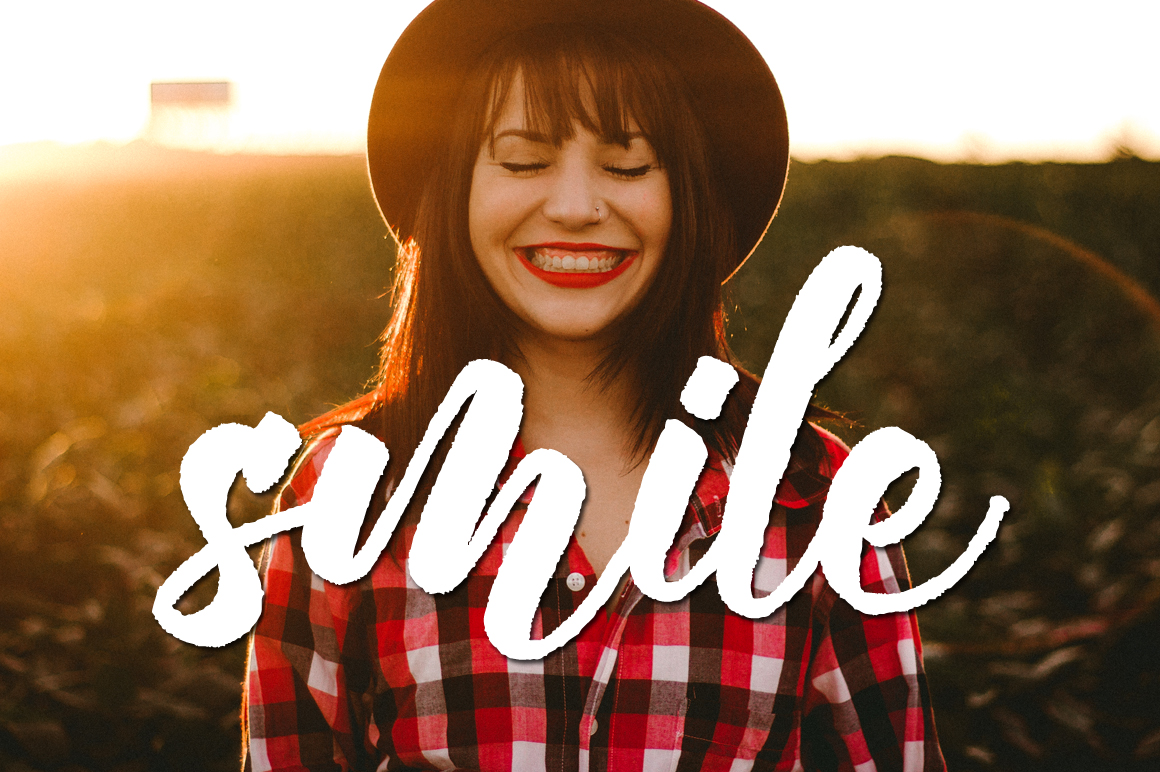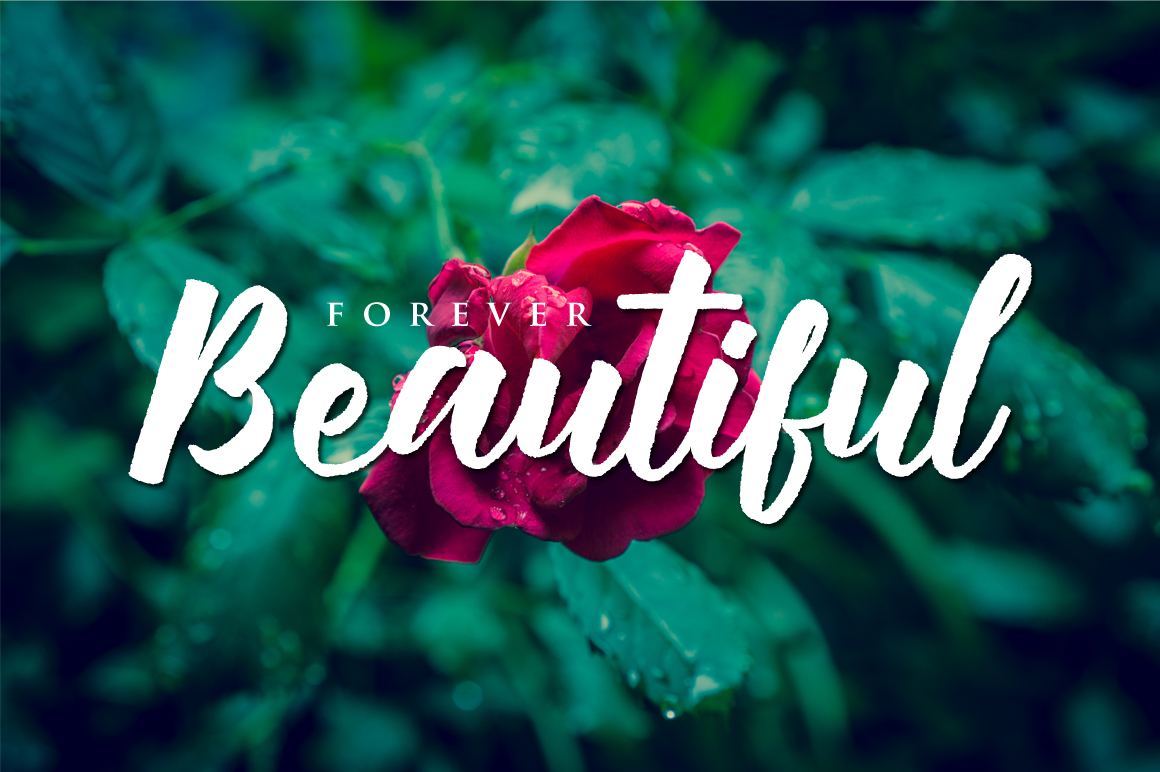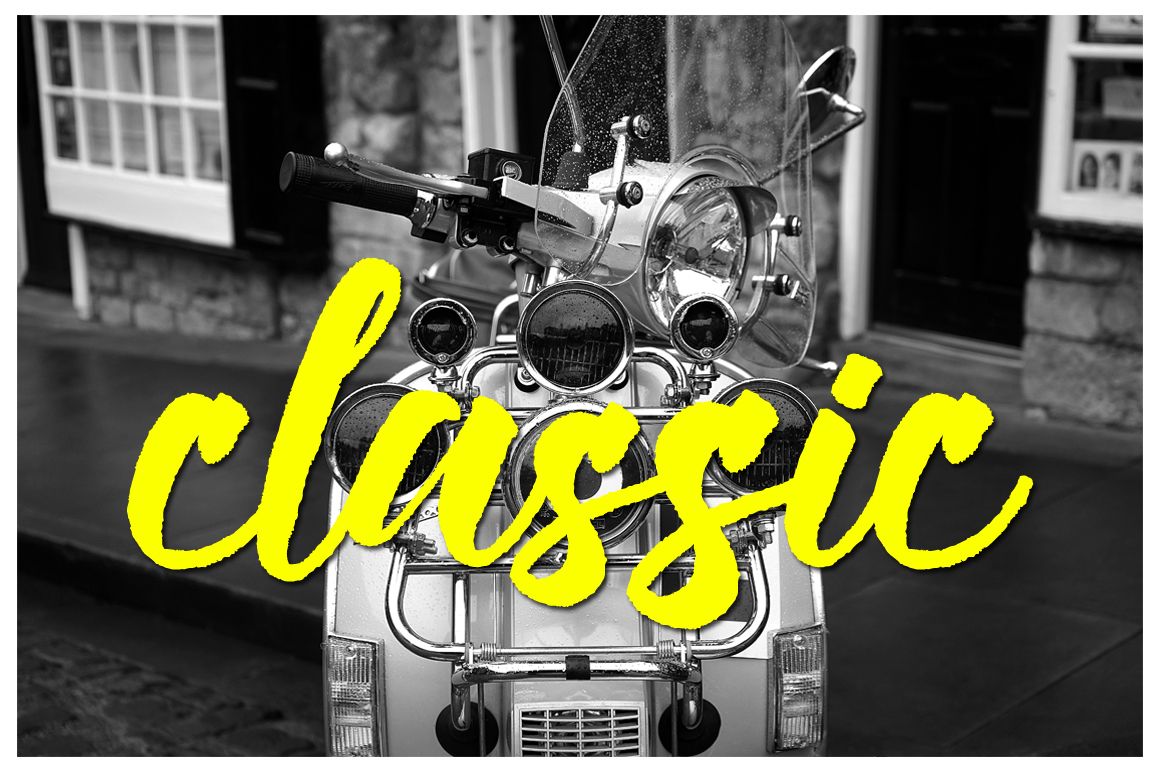
Introduction to Manttes Font
As designers, we’ve all been there – staring at a blank canvas, waiting for that perfect font to bring our creative project to life. For some, it’s a moment of pure inspiration, while for others, it’s a tedious search through endless font libraries. But what if we told you that there’s a font that can make that moment of magic happen? Meet the Manttes Font, a stunning, handmade creation that’s about to revolutionize your design workflow.
This high-quality font, crafted in a modern calligraphic style, is a valuable design resource that’s sure to elevate your creative projects. With its transparent background and versatility, it’s perfect for designers looking to add a touch of sophistication to their work. And the best part? It’s available for a free download, making it an accessible and exciting addition to your design arsenal.
Key Features of Manttes Font
- High-quality design resource ideal for creative projects, offering a unique and elegant touch.
- Transparent background, allowing for effortless layering and customization to suit any design requirement.
- Available in multiple sizes and resolutions, making it perfect for a range of creative applications.
- Designed with precision and care, Manttes Font boasts a sophisticated and refined aesthetic, elevating any design to the next level.
- Perfect for use in various creative projects, from digital art to print media, due to its versatility and high-quality design.
Honest Review: Manttes Font
As a designer, I’m always on the lookout for high-quality design resources to elevate my creative projects. Recently, I came across the Manttes Font, and I was eager to put it to the test.
Here are my thoughts on what works well with this font:
- ✨ Unique design: The Manttes Font has a distinctive style that sets it apart from more generic fonts. Its intricate details and subtle flair make it perfect for adding a touch of personality to your design.
- ✨ Transparent background: The font’s transparent background allows for seamless integration with your design, making it a versatile choice for various creative projects.
- ⚠️ Limited character set: The Manttes Font has a relatively small character set, which may limit its use in certain design projects.
- ⚠️ Not suitable for large-scale text: Due to its intricate design, the font may not be the best choice for large-scale text or headings.
Overall, I’m impressed with the Manttes Font’s unique design and versatility. While it may have some limitations, it’s a great resource for designers looking to add a touch of elegance to their creative projects.
How to Use Manttes Font
Manttes Font is a high-quality design resource that offers a unique and creative approach to typography. With its transparent background, this font is perfect for designers working on various projects.
Tips for Getting the Most Out of Manttes Font
To get the most out of Manttes Font, use it in conjunction with other design elements to create a cohesive and visually appealing design.
Experiment with different font sizes, colors, and styles to find the perfect combination for your creative project.
Manttes Font is perfect for designers working on various projects, including:
1. Branding and logo design.
2. Digital marketing materials, such as social media graphics and email templates.
3. Print design, including business cards and brochures.